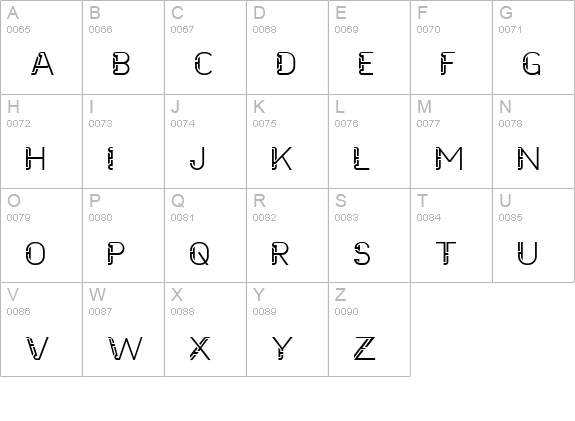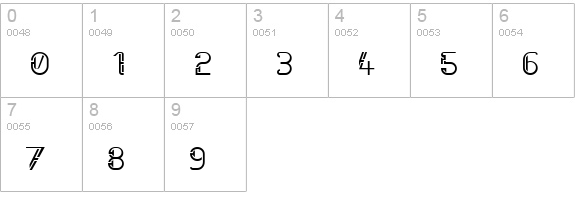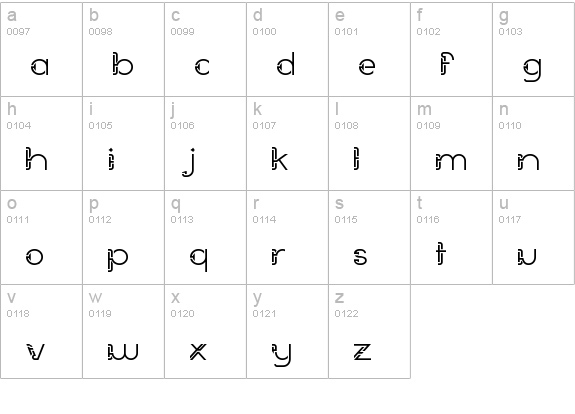
Future Sallow Font Details
Future Sallow font is a sleek and modern typeface that exudes sophistication and creativity. Its clean lines and futuristic design make it perfect for a variety of projects, from branding to editorial design. The unique geometric shapes and sharp edges give this font a contemporary feel that is sure to make your text stand out. This versatile font is ideal for both headings and body text, adding a touch of elegance to any project. Whether you're designing a website, creating a poster, or working on a brochure, Future Sallow font will lend a polished and professional look to your work. Best of all, Future Sallow font is available for free download at FontsMarket.com. So you can easily incorporate this stylish typeface into your designs without breaking the bank. Don't miss out on this fantastic opportunity to elevate your projects with the sleek and modern look of Future Sallow font.